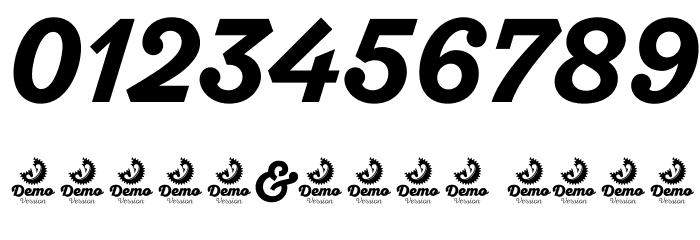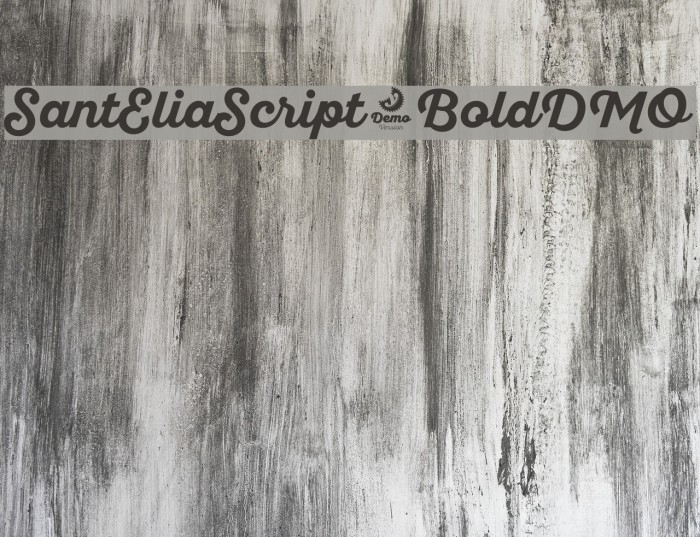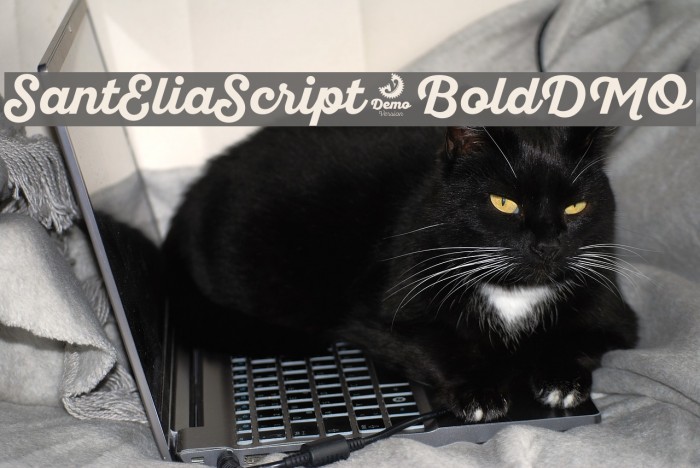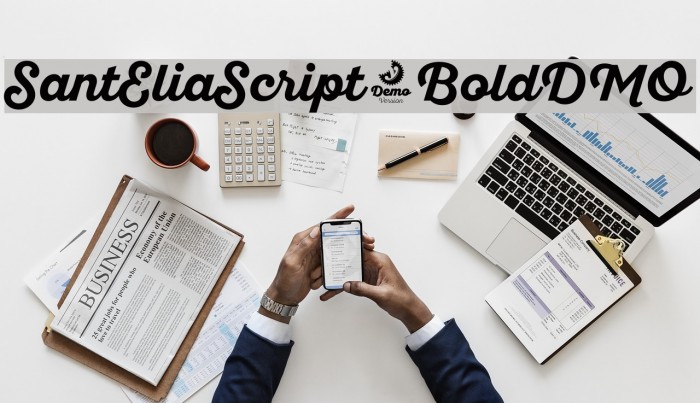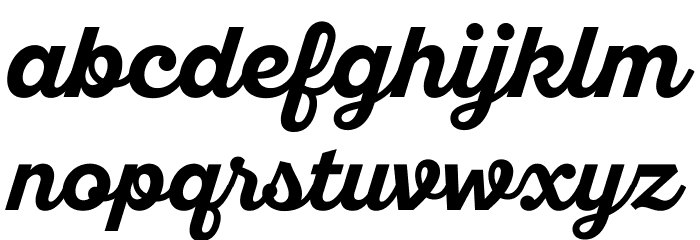
SantEliaScript-BoldDMO Font
SantEliaScript-BoldDMO Description
This font exudes a bold and dynamic script style, characterized by its flowing, cursive letterforms. The uppercase letters are elegantly crafted with smooth curves and a consistent stroke weight, giving them a strong presence. The lowercase letters maintain a harmonious flow, with rounded edges and a slight slant that enhances the script's fluidity. Numbers are bold and clear, matching the overall aesthetic. Special characters are thoughtfully integrated, maintaining the script's cohesive look. This font is ideal for projects that require a touch of elegance and boldness, such as branding, invitations, and signage.
A bold, dynamic script font with flowing cursive letterforms from Uncategorized fonts.